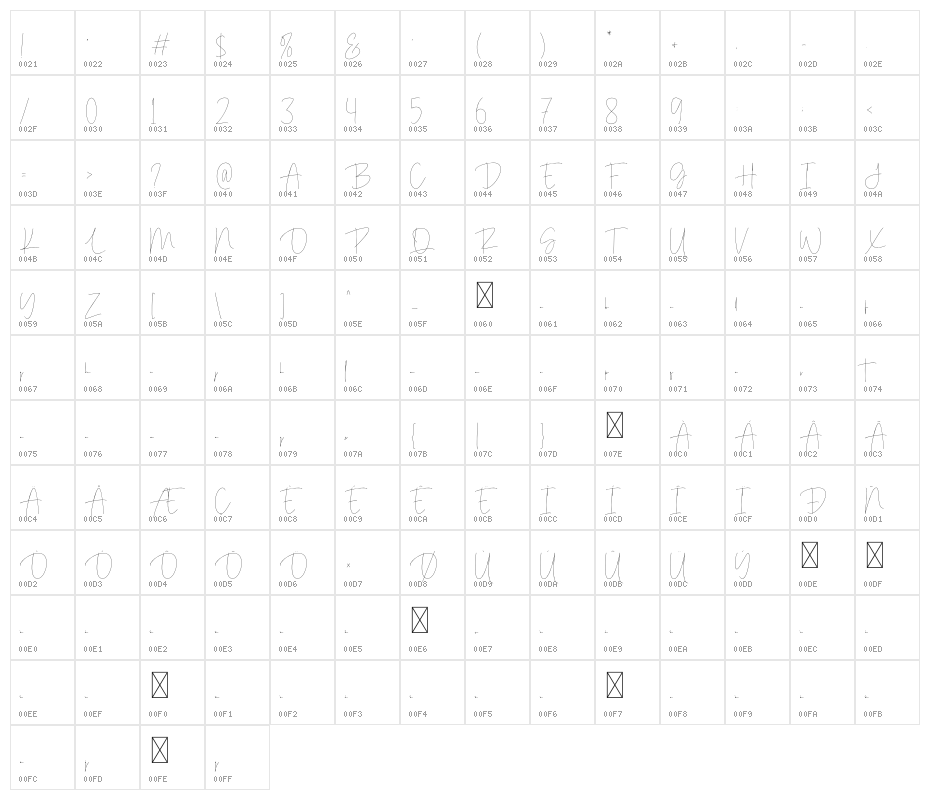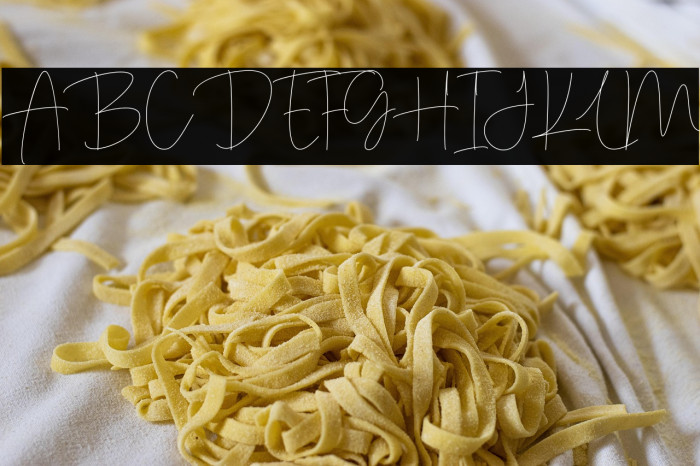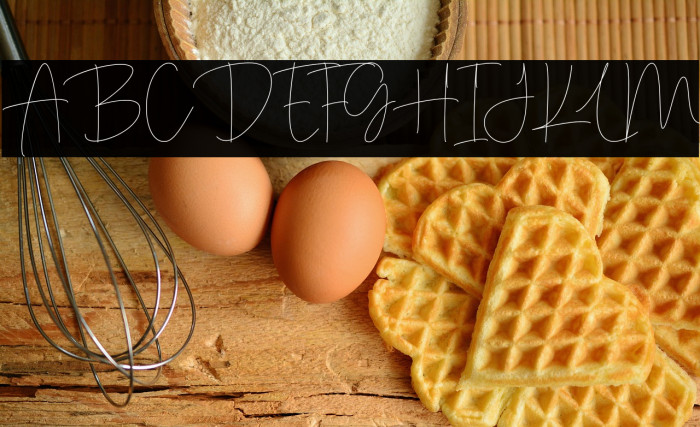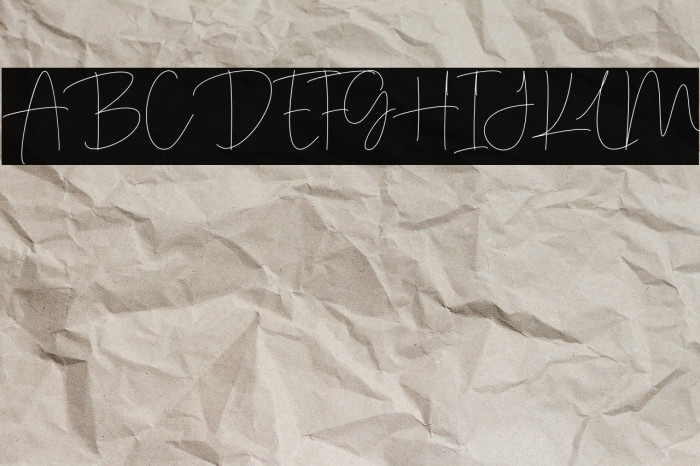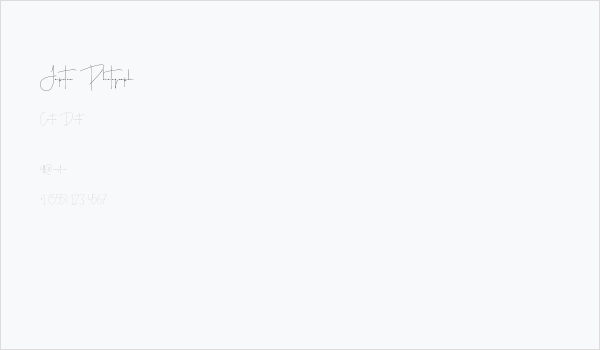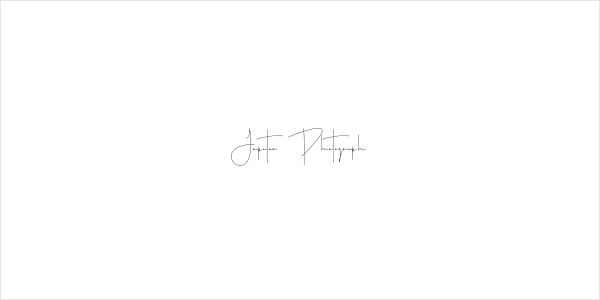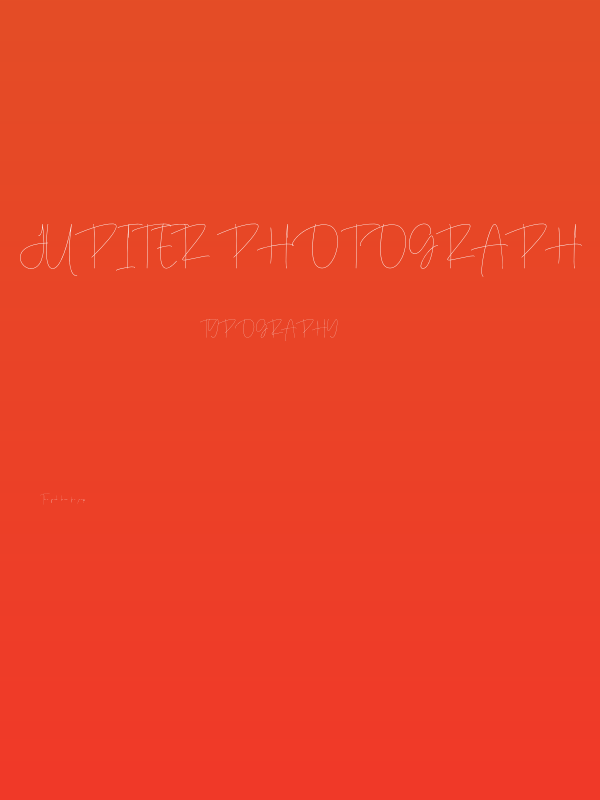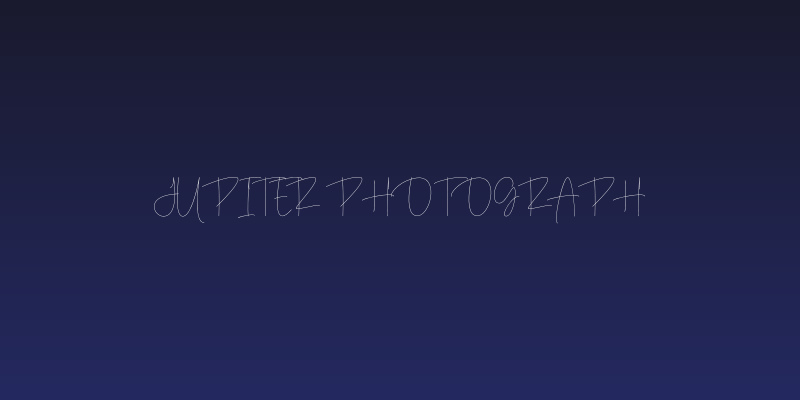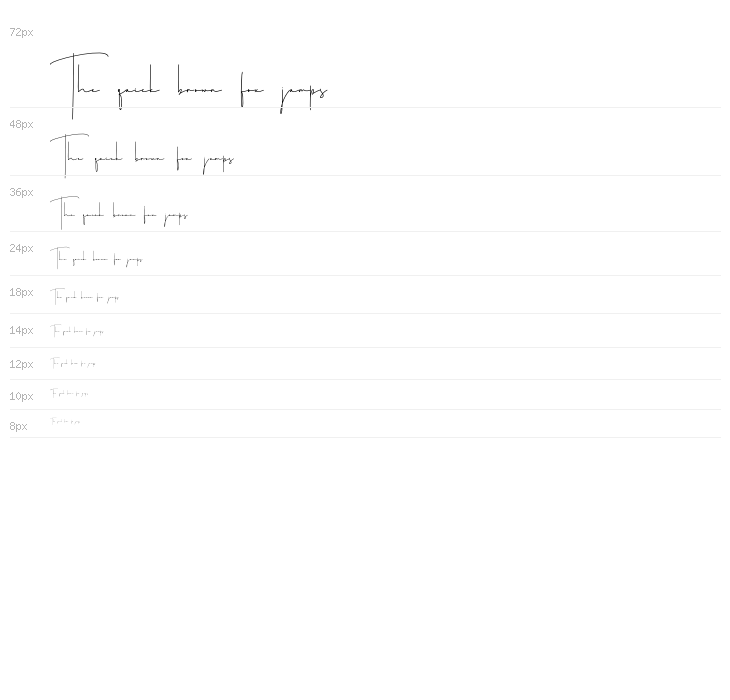
Jupiter Photograph Font
Jupiter Photograph Description
A thin, handwritten script font with a casual and flowing style, featuring irregular strokes and a personal touch.
| Overall Style | Casual, Artistic |
| Use Case | Invitations, Artistic projects |
| Proposed Projects | Invitations, personal notes, artistic projects. |